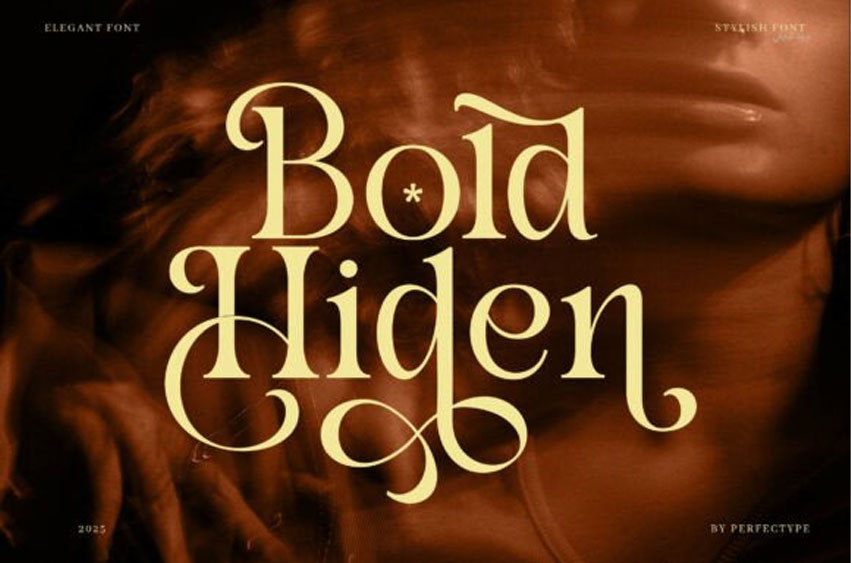
Bold Hiden Font
Bold Hiden Font is a bold yet graceful typeface that combines the beauty of calligraphy with the strength of a modern serif. It’s crafted to bring elegance, clarity, and personality to your creative work.
From first glance, Bold Hiden grabs attention. It features clean lines, smooth curves, and strong contrasts, making it perfect for logos, websites, and packaging. Because each character is carefully balanced, your text will always appear neat and professional.